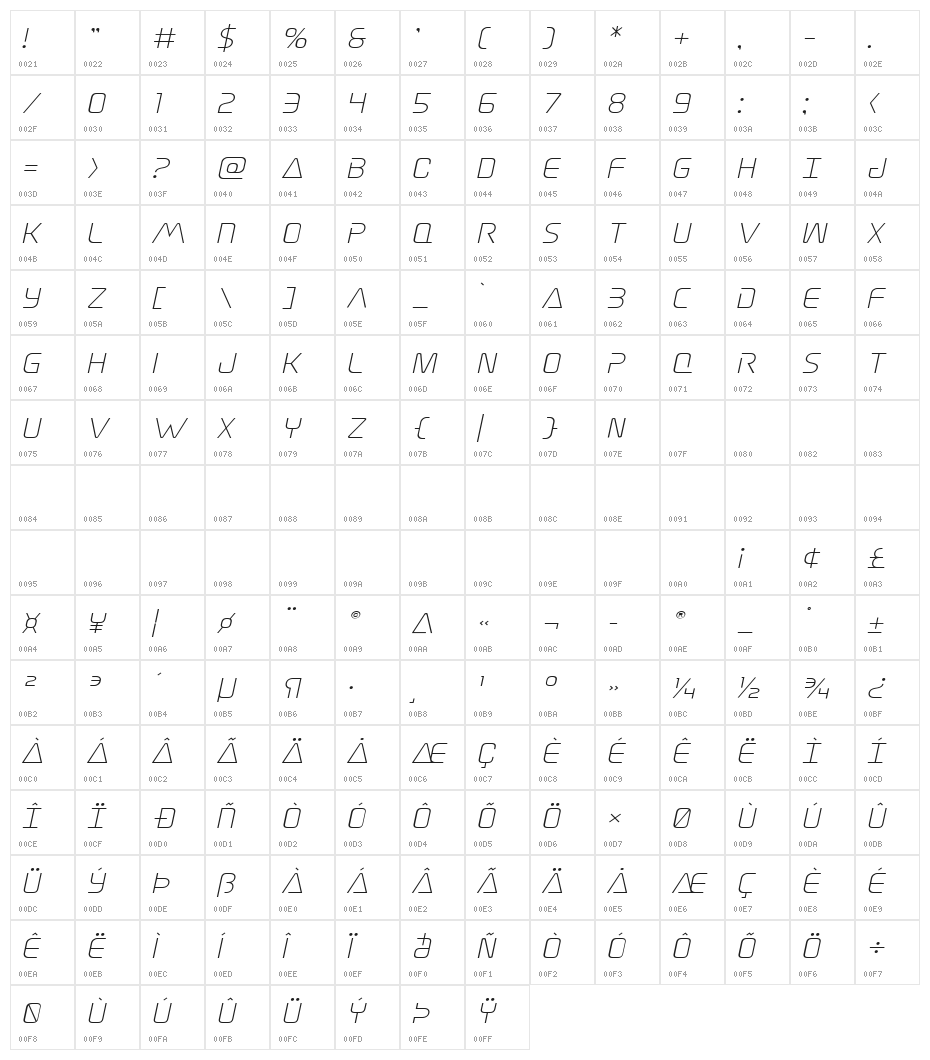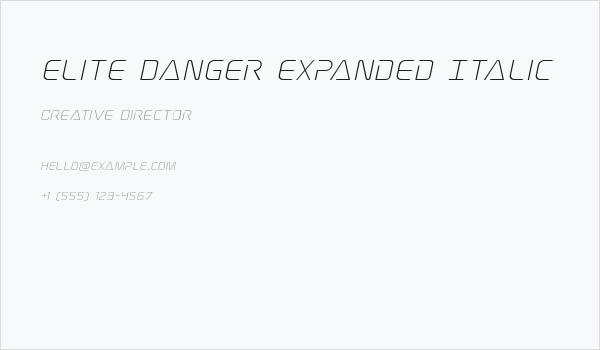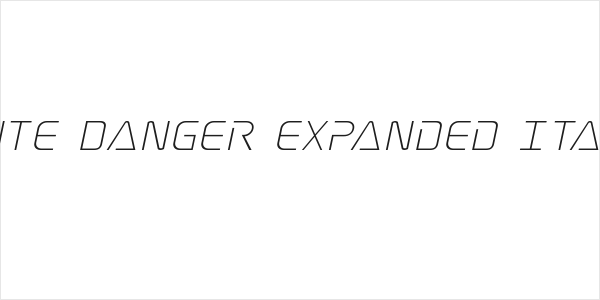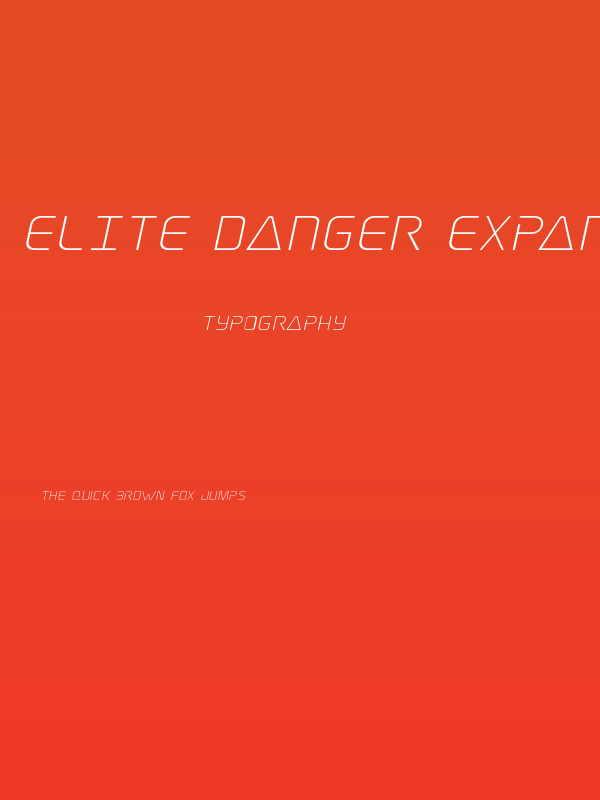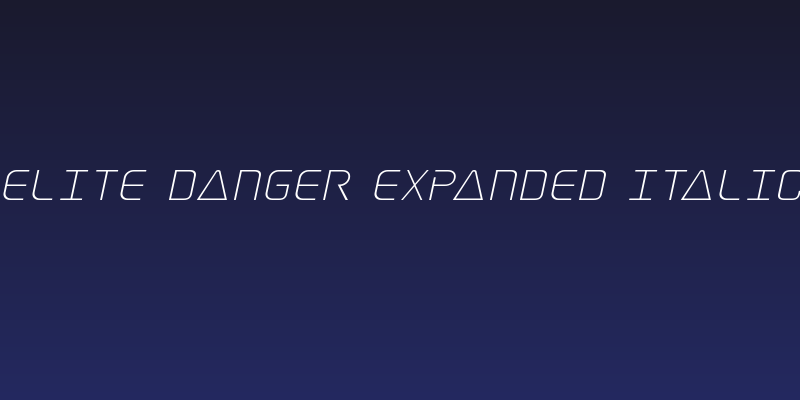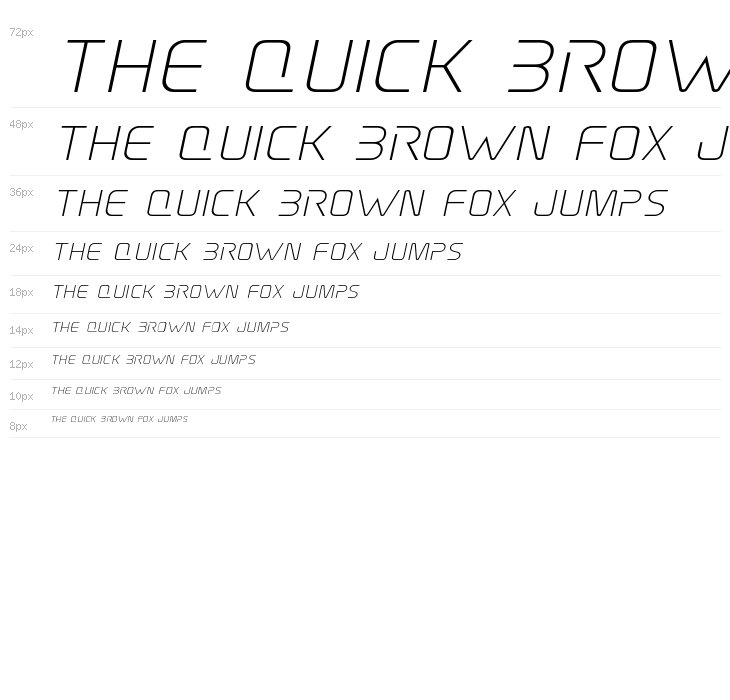
Elite Danger Expanded Italic Font
Elite Danger Expanded Italic Description
This font features a sleek, futuristic design with an expanded and italicized style. The characters are composed of clean, geometric lines that convey a sense of modernity and precision. The uppercase letters have a distinct angularity, while the lowercase letters maintain a consistent flow, enhancing readability. The numerals are uniform and align well with the overall aesthetic, making them suitable for digital interfaces. Special characters are crafted with the same attention to detail, ensuring they integrate seamlessly with the rest of the typeface. This font's expanded width and italic slant give it a dynamic appearance, ideal for projects that require a contemporary and innovative look.
| Use Case | Headlines, Logos, Digital Interfaces |
| Proposed Projects | Ideal for tech branding, digital interfaces, sci-fi themed projects, and modern advertising. |